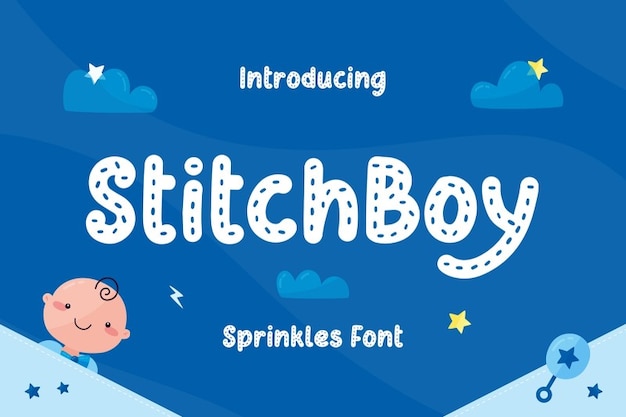
Stitch Boy Font
Stitch Boy is a playful font designed to mimic the look of stitched or traced letters, giving each character a handcrafted, whimsical feel. Perfect for children’s materials, DIY projects, or creative branding, this font adds a cozy, homespun touch. Its traced lines and dotted details bring text to life, making Stitch Boy ideal for designs that seek to be approachable and fun.